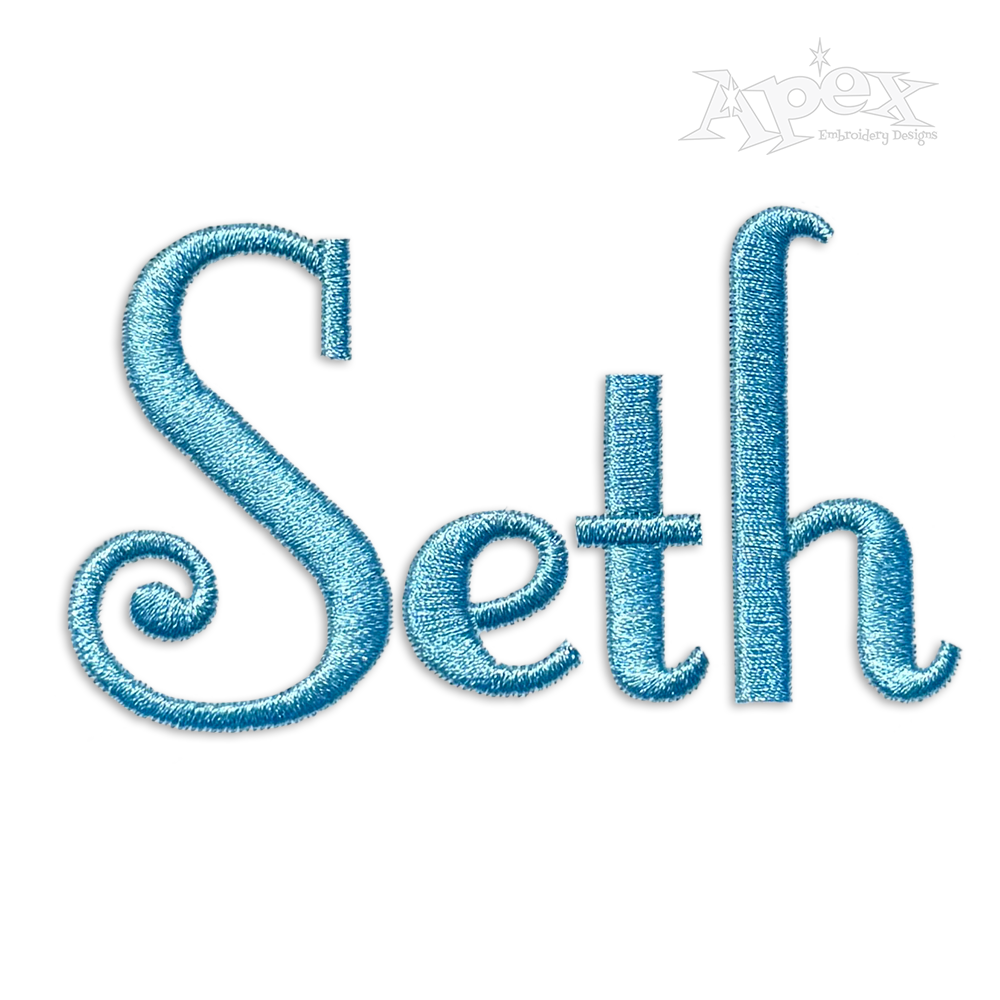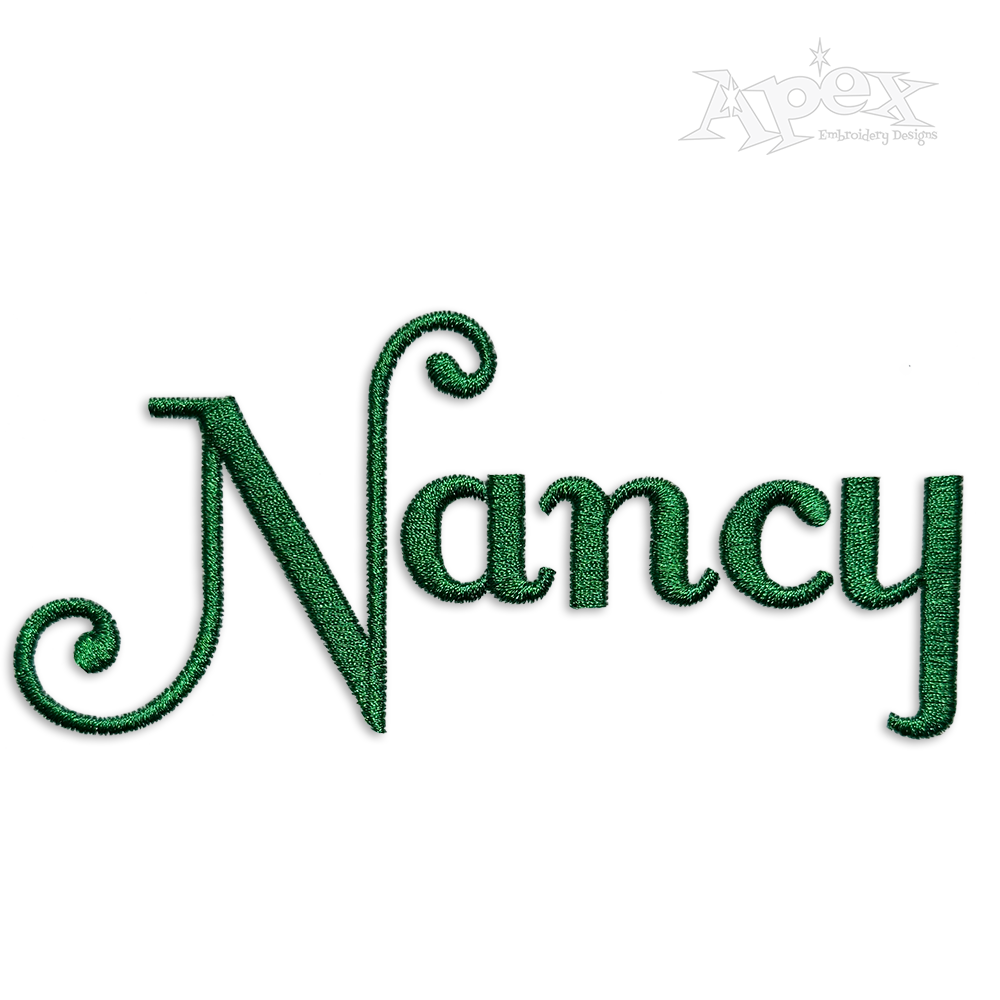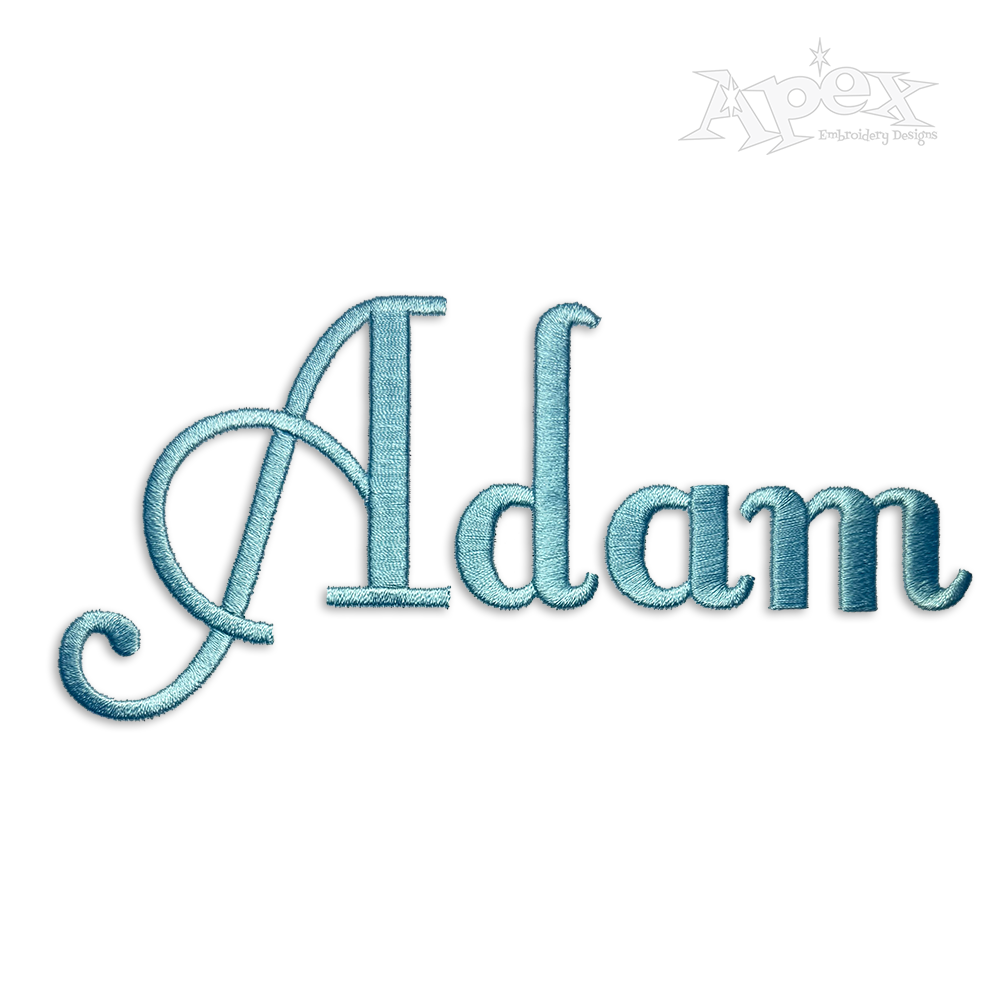
Harris Embroidery Font
Drawing inspiration from the timeless distinction of bespoke haberdashery and heritage stationery, the Harris Embroidery Font brings refined character to personalized stitchery. Conceived for stitchers who appreciate architectural balance and graceful proportions, this alphabet is rendered in pure, unbroken satin stitch columns that catch the light with subtle luster. Whether gracing fine table linens or tailored resort wear, Harris provides a clean, distinguished voice that transforms everyday textiles into cherished heirlooms.
The Harris Embroidery Font is digitized entirely in lustrous satin stitching, engineered to deliver smooth edges and dense, tactile coverage across four versatile sizes:
- 0.75 inch (19mm): Ideal for crisp shirting cuffs, delicate handkerchief monograms, and subtle pocket placements.
- 1.0 inch (25mm): Perfectly proportioned for linen cocktail napkins, baby garments, and collar accents.
- 1.5 inch (38mm): A classic standard for chest monograms, cosmetic bags, and guest hand towels.
- 2.0 inch (50mm): A bold focal point for heirloom bedding, decorative pillow shams, and canvas totes.
Project Ideas for Harris Embroidery Font
- Heirloom Bedding & Bath: Stitch crisp initials into the corner flanges of linen pillow shams or center them along plush Egyptian cotton bath sheets for a five-star hotel aesthetic.
- Luxury Table Linens: Personalize hemstitched linen dinner napkins, cocktail squares, and table runners for bespoke entertaining and holiday hosting.
- Bespoke Resort Wear & Apparel: Accent the chest pocket of a linen button-down, a structured pique polo, or a relaxed resort kaftan with tailored, clean-lined monograms.
- Personalized Gifting: Create treasured wedding and housewarming gifts by embellishing structured canvas weekender totes, fleece picnic throws, or waffle-weave spa robes.
- Bridal & Haberdashery Accents: Embroider the wedding date or initials into bridal dressing robes, ring bearer pillows, and silk pocket squares for timeless keepsakes.
- Corner Diagonal: Position your monogram 1.5 to 2.5 inches in from the finished edge on napkins and handkerchiefs, orienting the lettering at a true 45-degree angle across the corner.
- Left Chest: Center the monogram 7 to 9 inches down from the shoulder seam and midway between the placket and side seam on button-downs, golf shirts, and knitwear.
- Shirt Cuffs: Place the 0.75-inch letterforms 1 inch above the cuff edge, positioned just off-center toward the outer wrist for an understated sartorial flourish.
- Border Bands: Align larger 2-inch lettering directly above the woven dobby band on bath towels, centering the monogram horizontally for balanced visual weight.
Harris Embroidery Font Craft & Letterform Details
The beauty of the Harris Embroidery Font lies in its meticulous digitizing craftsmanship. Rather than relying on automated conversions, each letterform has been sculpted manually with custom pull compensation and directional satin angles that contour naturally around every bend and junction. This calculated flow ensures thread lays smoothly across the fabric grain, preventing unsightly pinching or tunneling on soft wovens.
Subtle, tailored terminals and sturdy vertical stems give Harris its stately cadence, while uniform column widths maintain crisp legibility even down to the delicate three-quarter-inch scale. With calibrated underlay stitches anchoring the fabric beneath, every letter rises with clean, dimensional definition that resists wash wear and retains its polished profile for years to come.